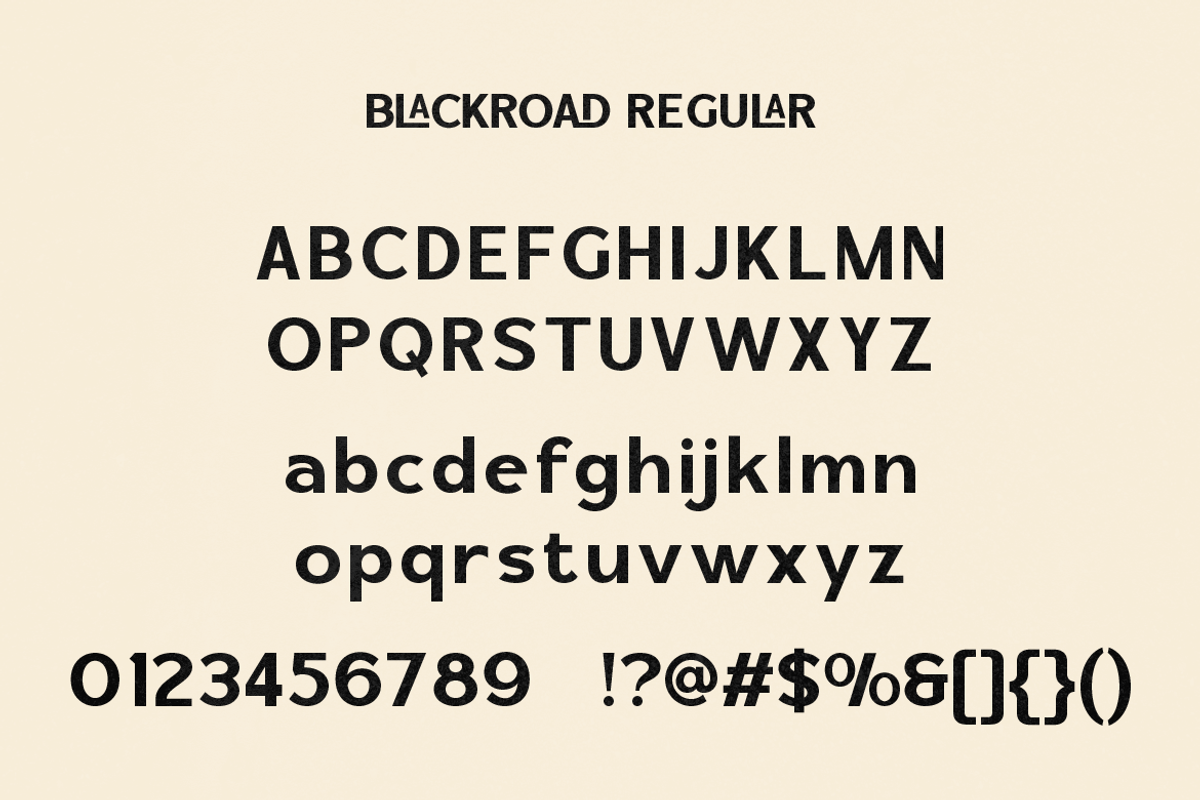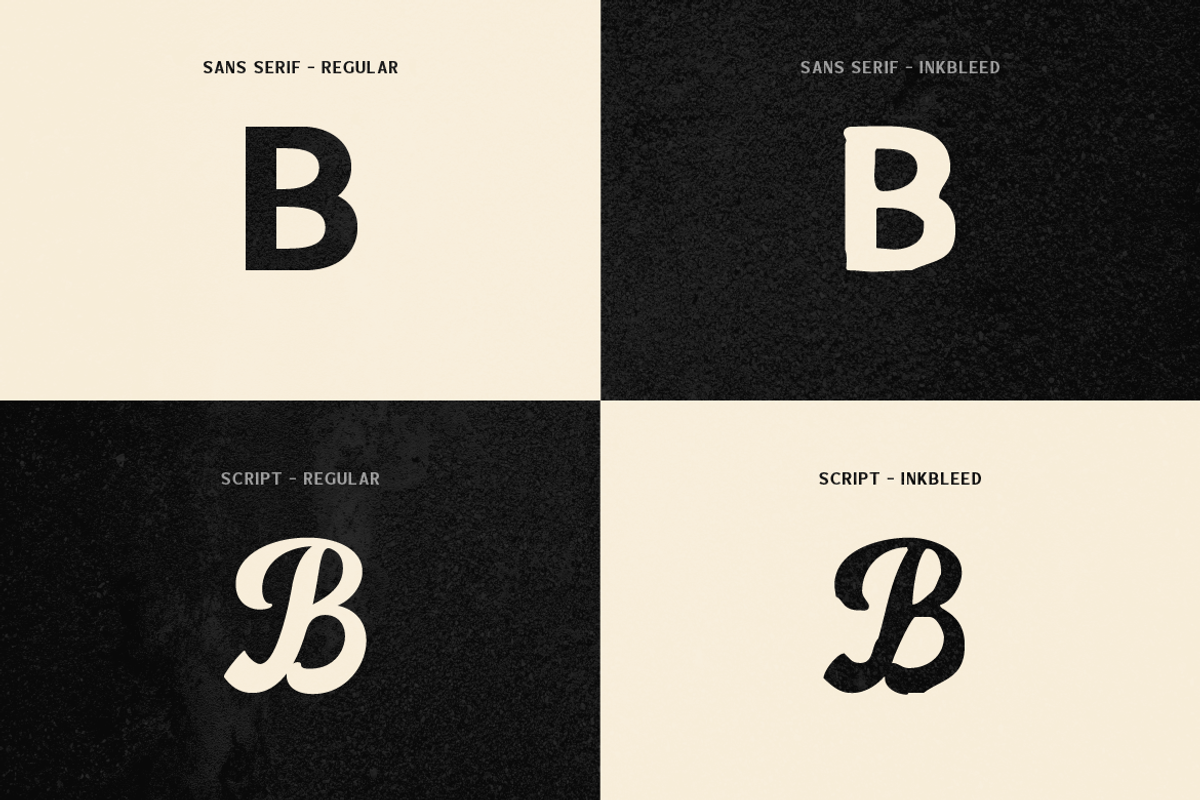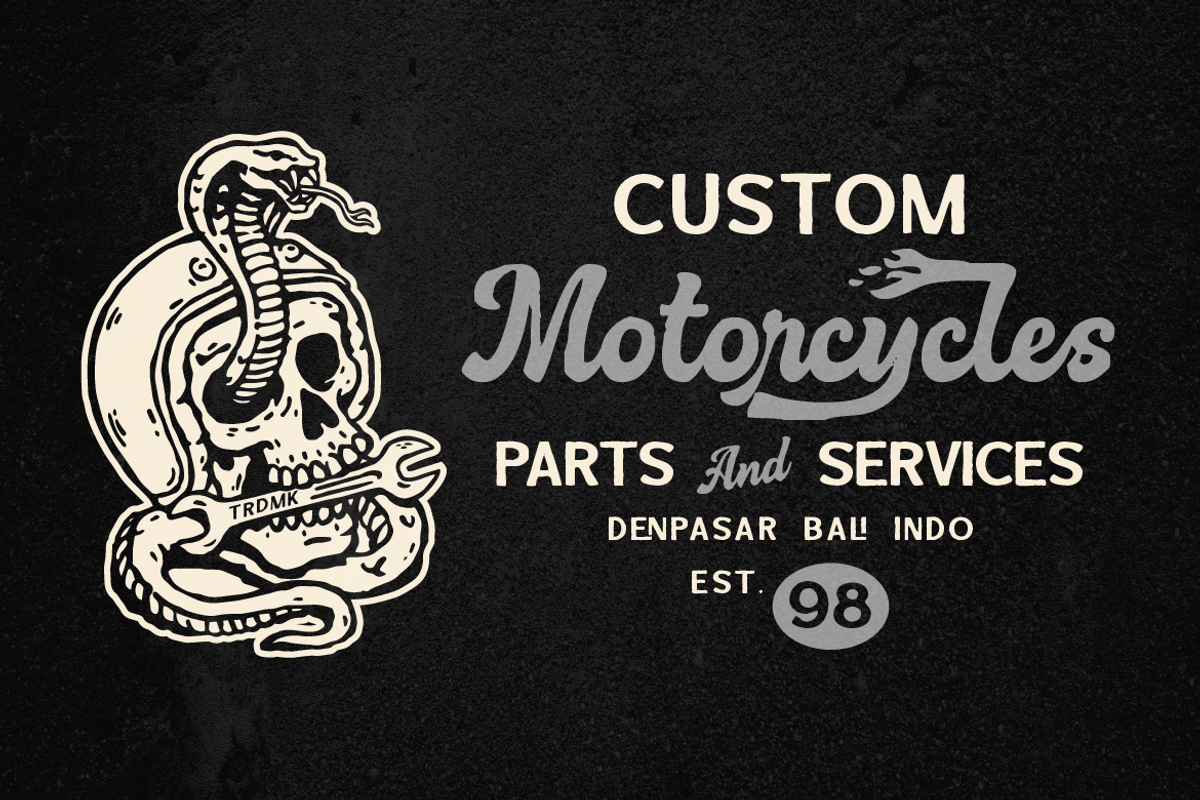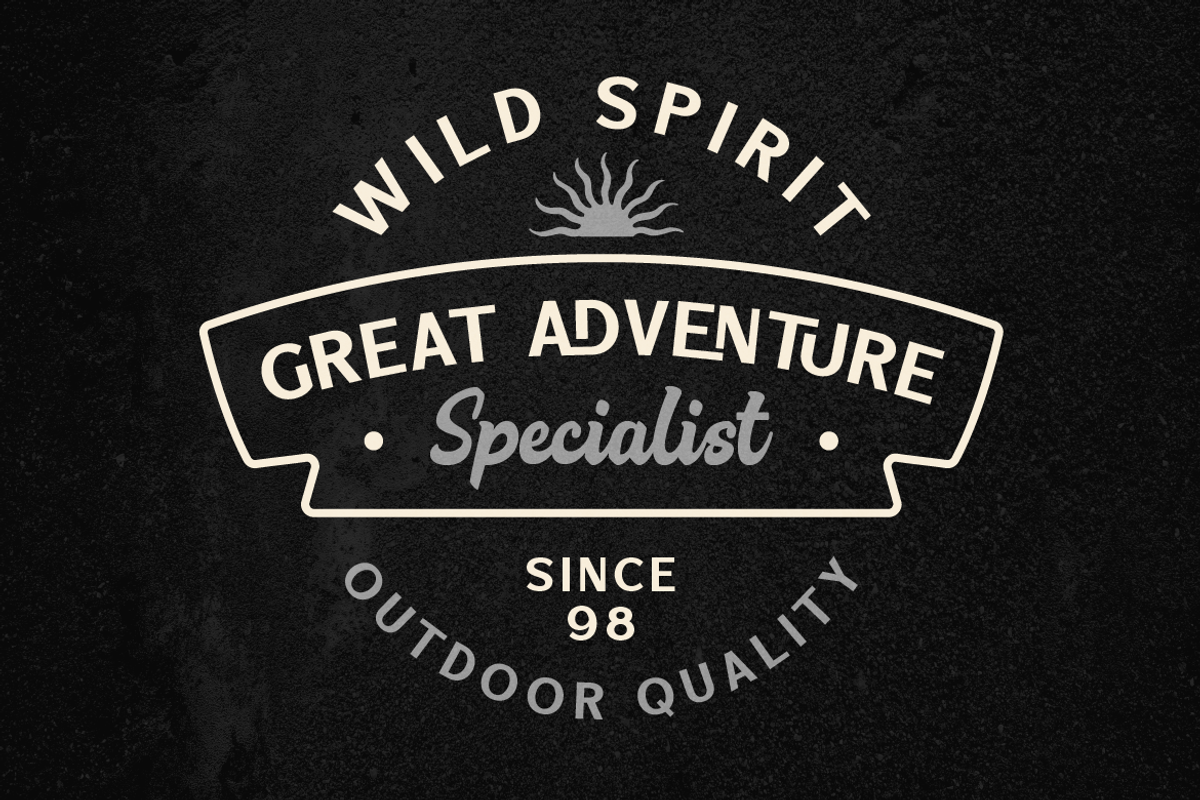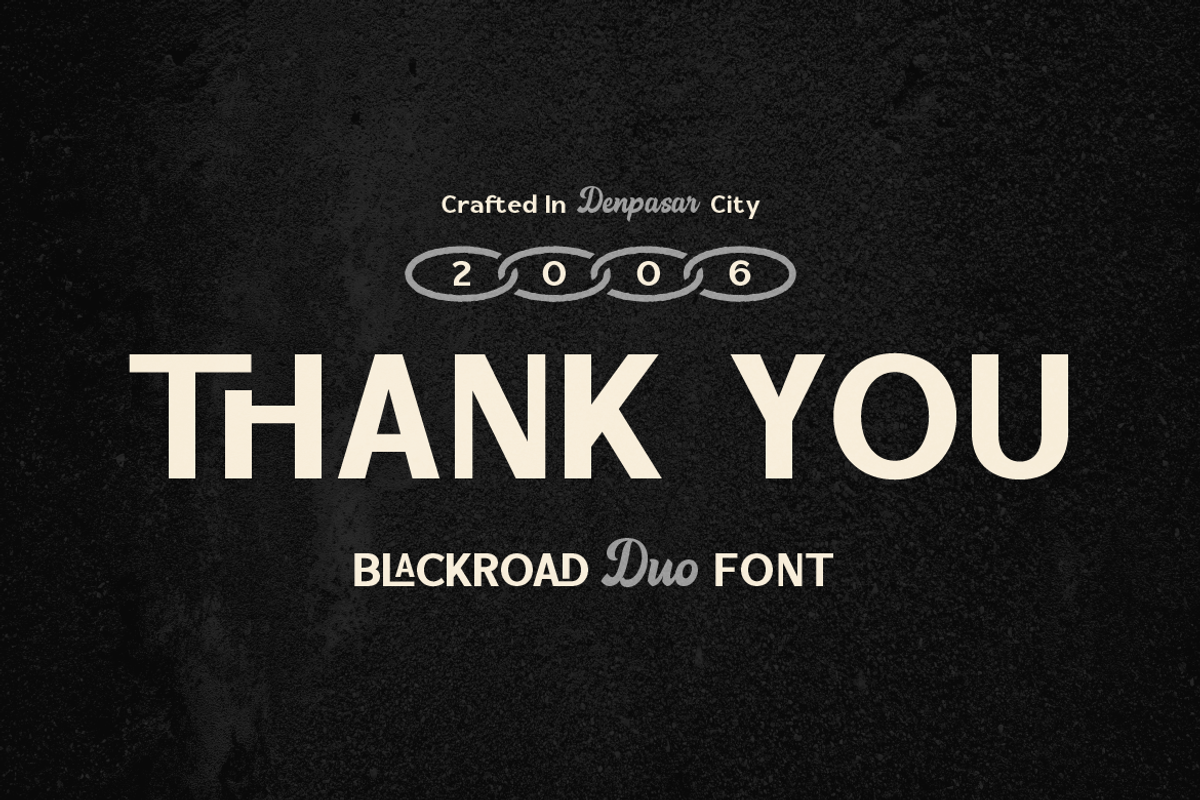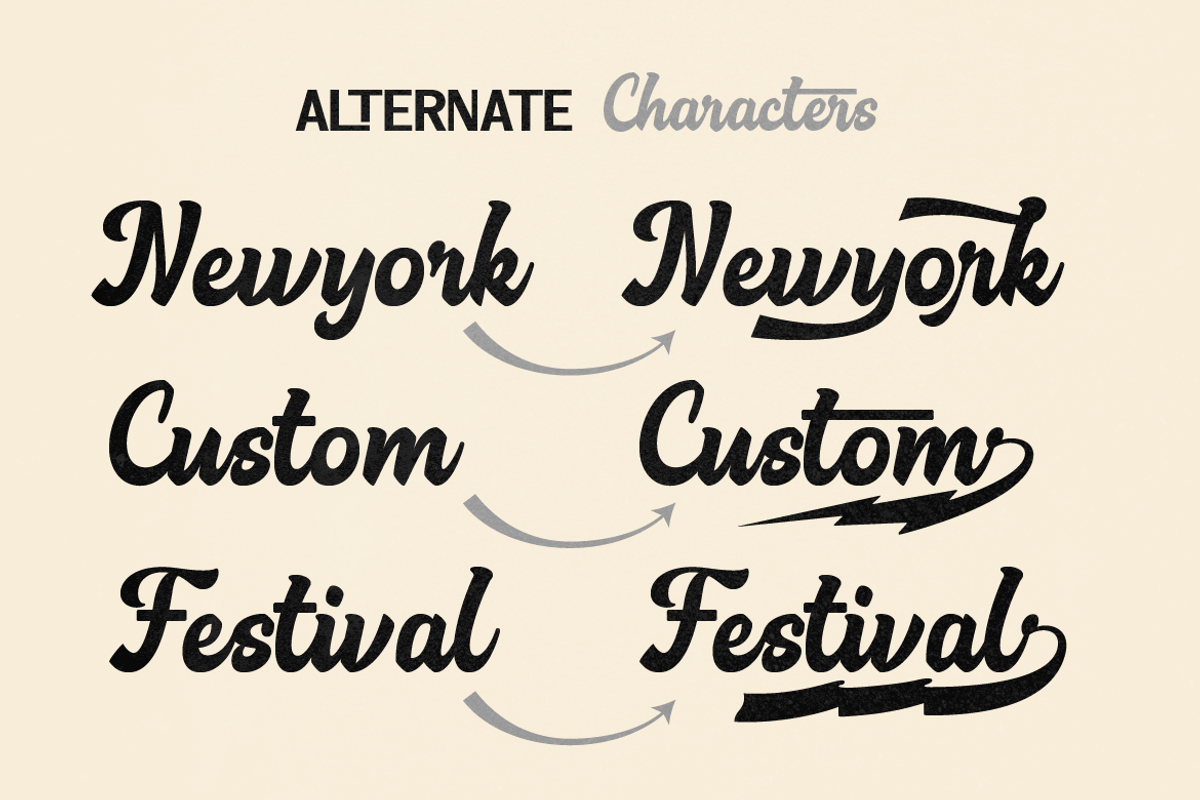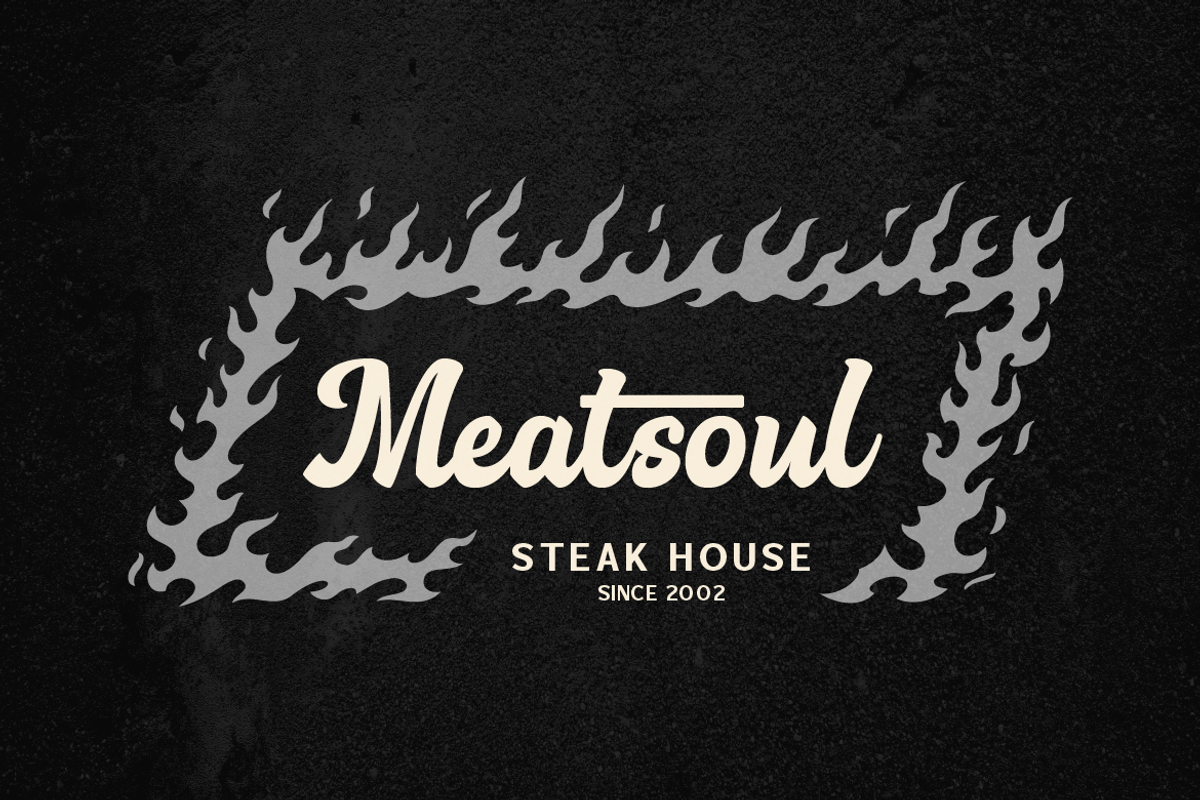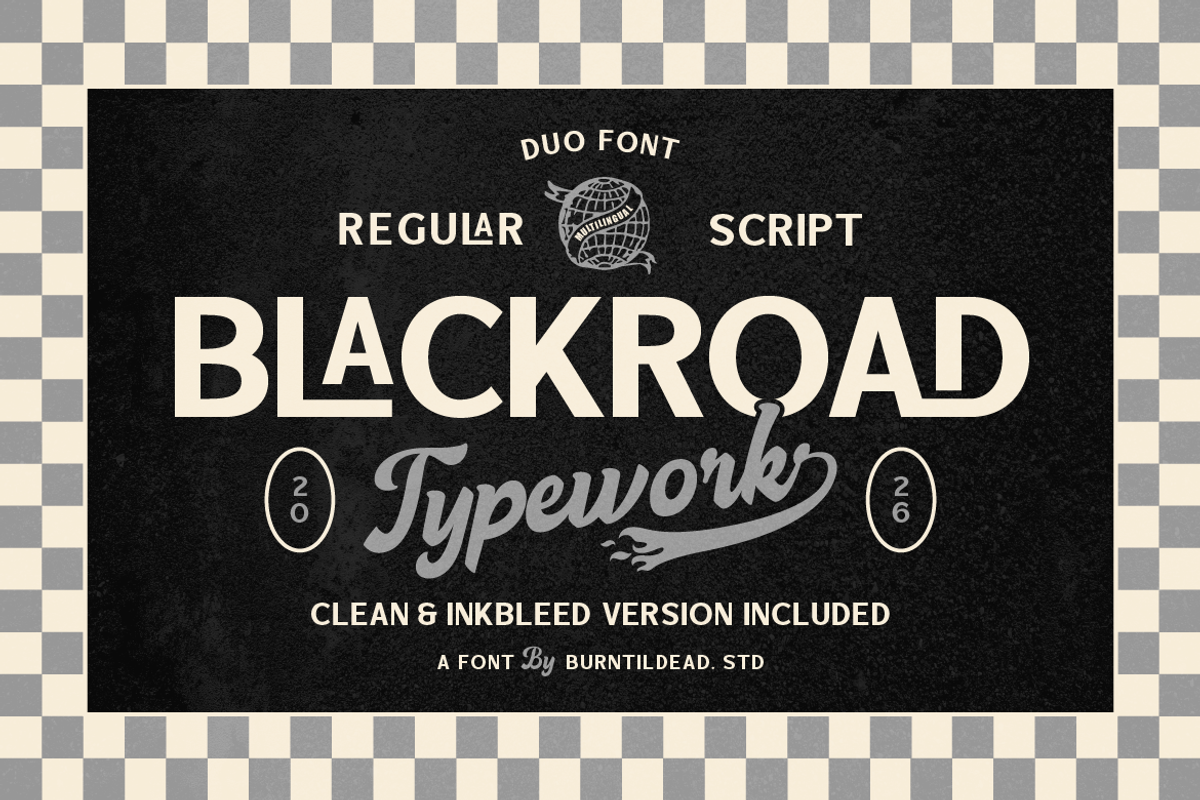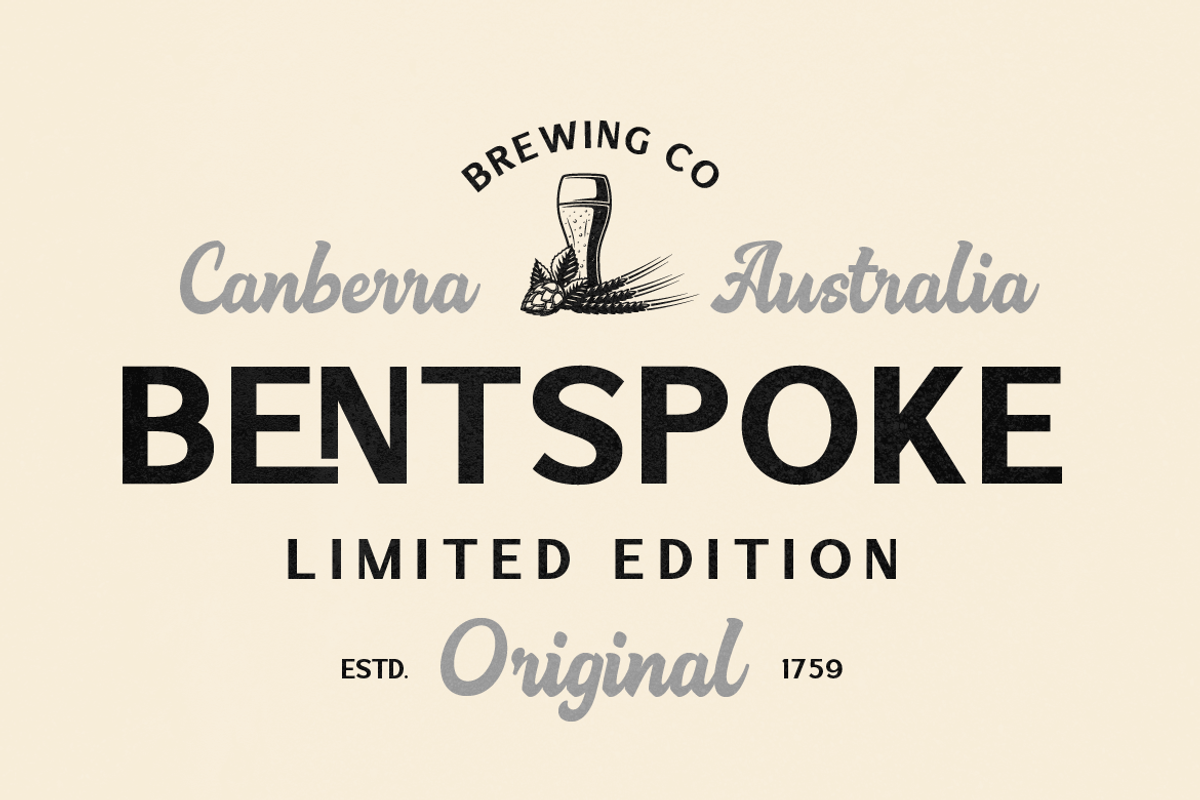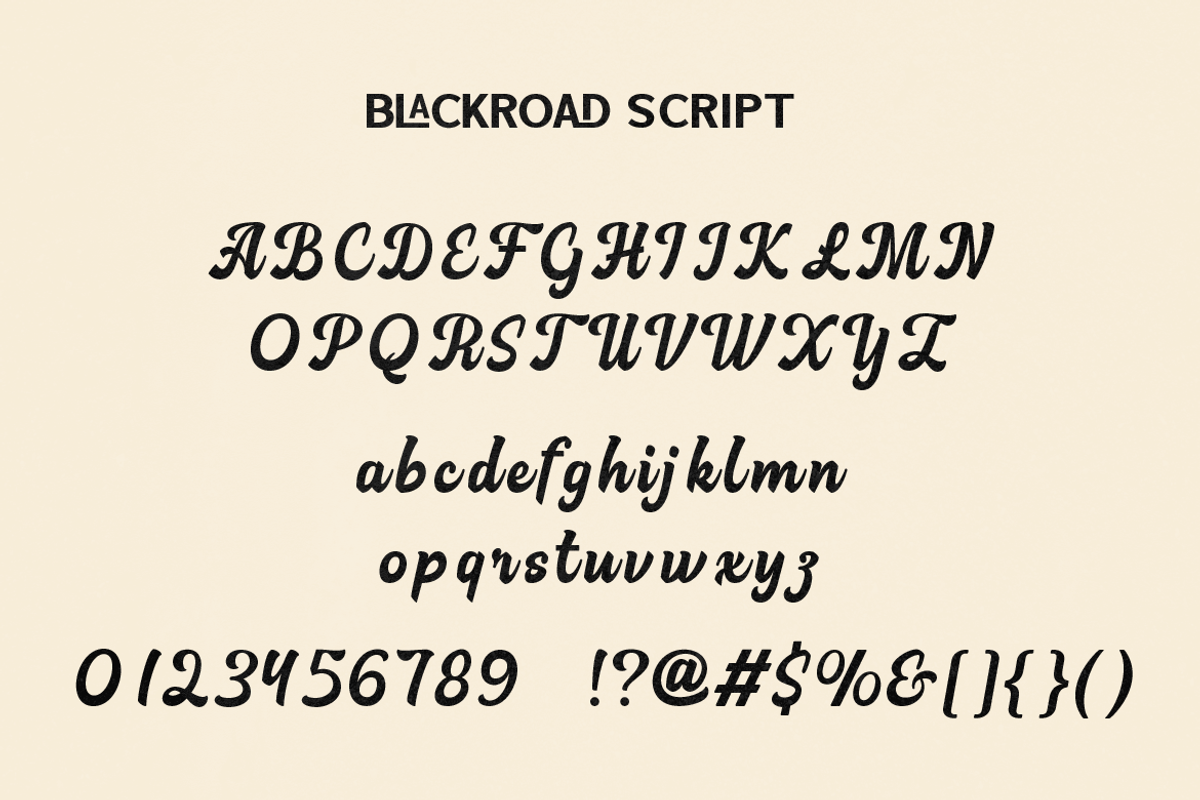
Blackroad
Blackroad is a bold and stylish duo font that combines a clean sans serif with a smooth vintage script. Designed to bring a strong retro personality, this font is perfect for creating eye-catching designs with a classic and rugged feel.
With its regular and script styles, Blackroad gives you the flexibility to mix and match typography effortlessly. The clean sans serif keeps everything readable and modern, while the script adds a handcrafted, authentic touch.
This font also comes with alternate characters and inkbleed versions, giving your design a more natural, vintage print effect—perfect for achieving that old-school look.
Vintage logos & badges
Motorcycle & automotive branding
Apparel & merchandise design
Barbershop & tattoo studio branding
Packaging design
Posters & signage
Retro quotes & social media graphics